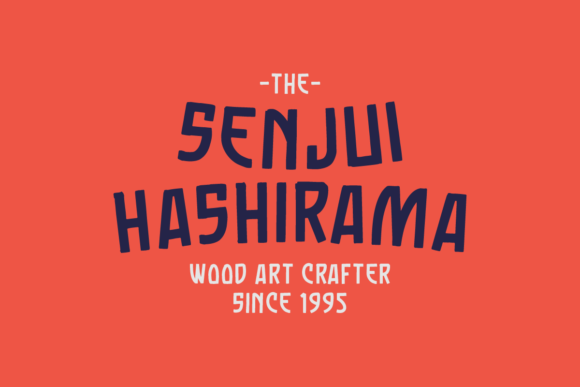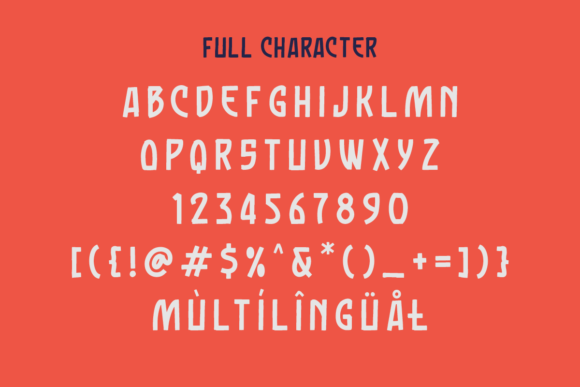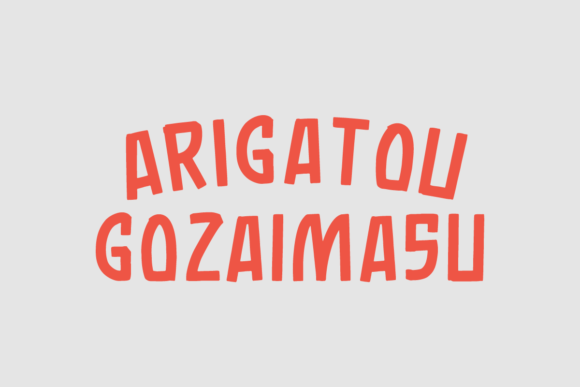
Introduction to Makuton Font Font
Fonts play a crucial role in design, and the Makuton Font font is a typeface that brings both character and versatility to any project. Whether you’re working on a branding project, a website, or a print design, the Makuton Font font offers a unique style that can elevate your work.
Makuton is a gorgeous display font with a modern vibe.
Get inspired by its elegant simplicity .
Key Features of Makuton Font Font
• ✅ High-quality typeface designed for professional use
• ✅ Includes a wide range of glyphs and characters
• ✅ Ideal for logos, branding, websites, and print
Why Choose Makuton Font Font?
The Makuton Font font is more than just a typeface – it’s a design tool that helps you communicate your message with style and clarity. Its unique character set and versatile design make it suitable for a wide range of applications, from elegant invitations to bold headlines.
With its carefully crafted letterforms and balanced proportions, the Makuton Font font ensures readability and visual appeal across all mediums.
What makes Makuton Font font special?
The Makuton Font font stands out with its unique design, exceptional readability, and versatility across various design applications.